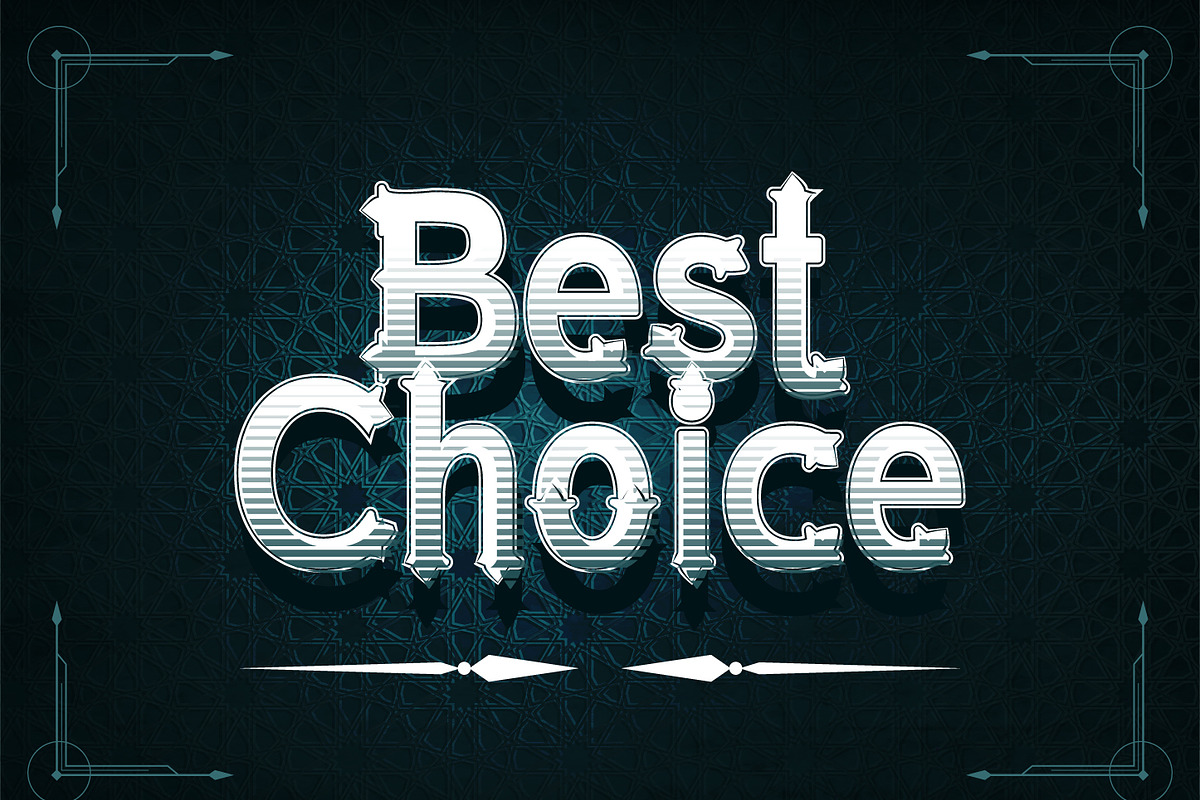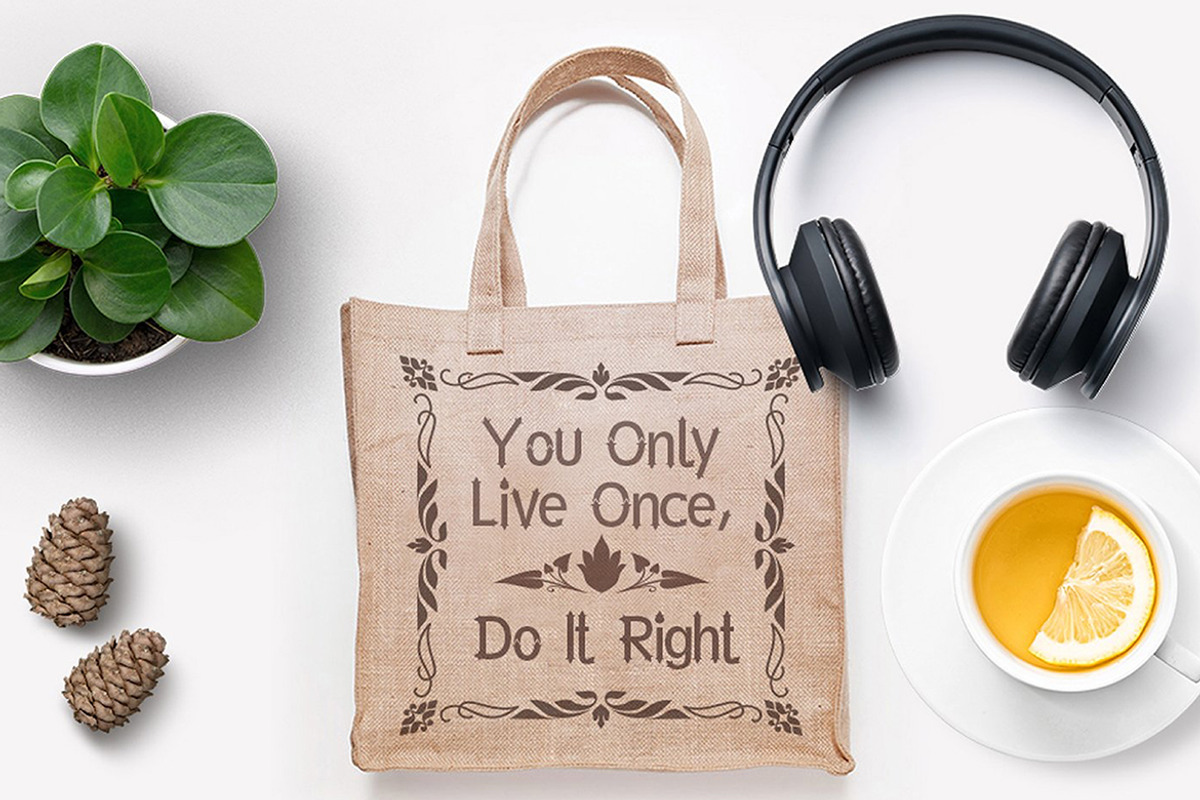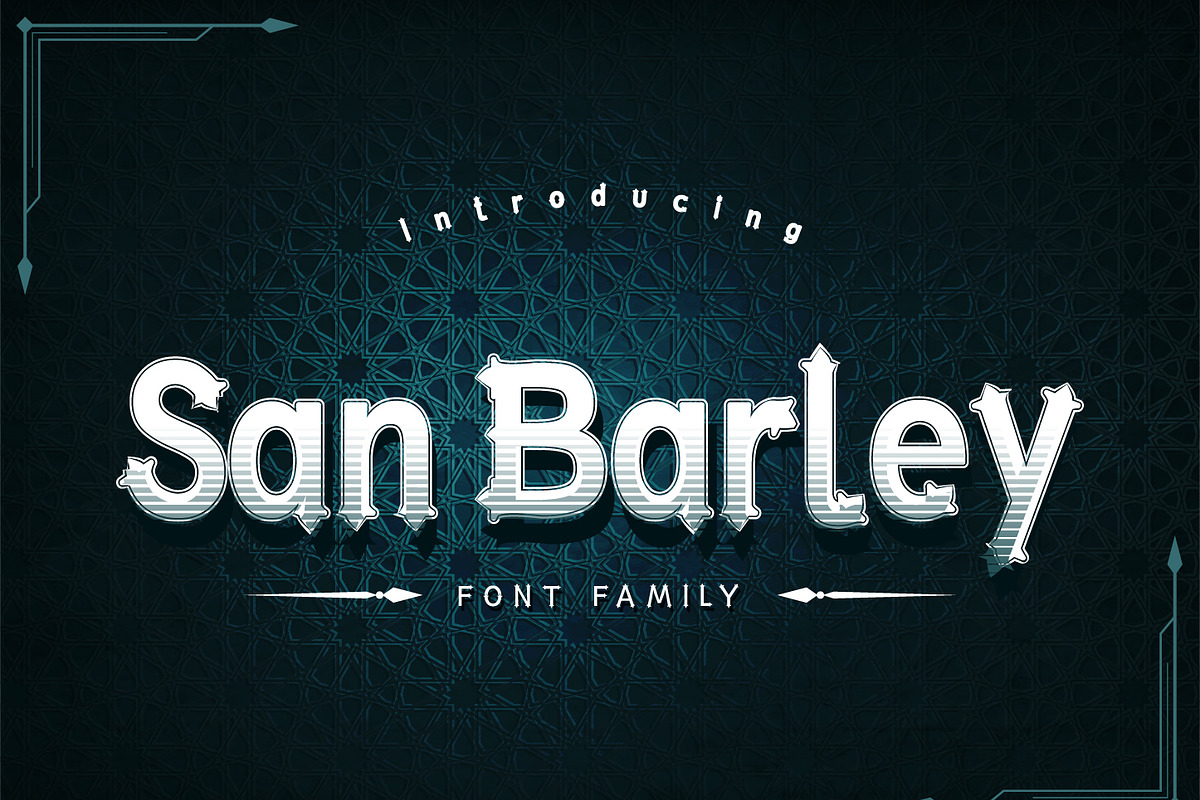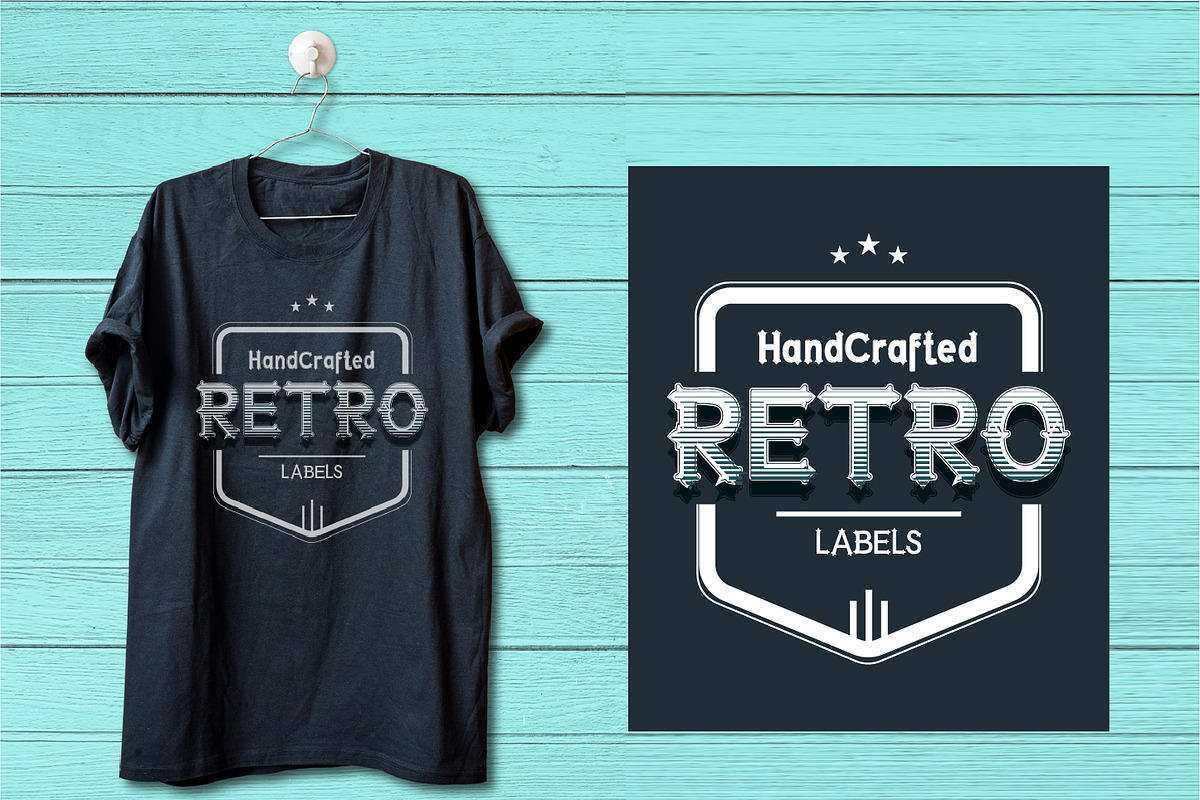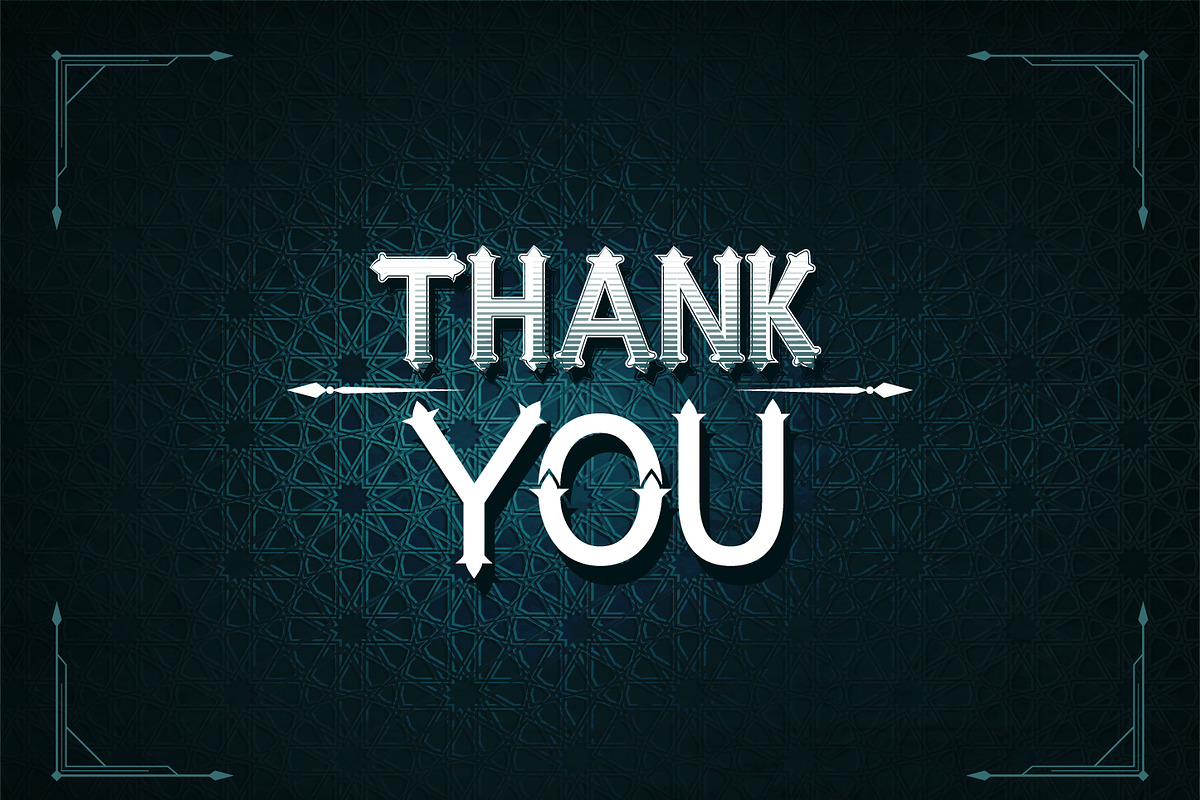
San Barley
Introducing San Barley Typeface Font Family, a western style display with 6 font family. San Barley is a font that has a vintage style that’s really suitable for apparel, design invitation, posters and many more. Font features uppercase & lowercase, numeric, & punctuation characters.